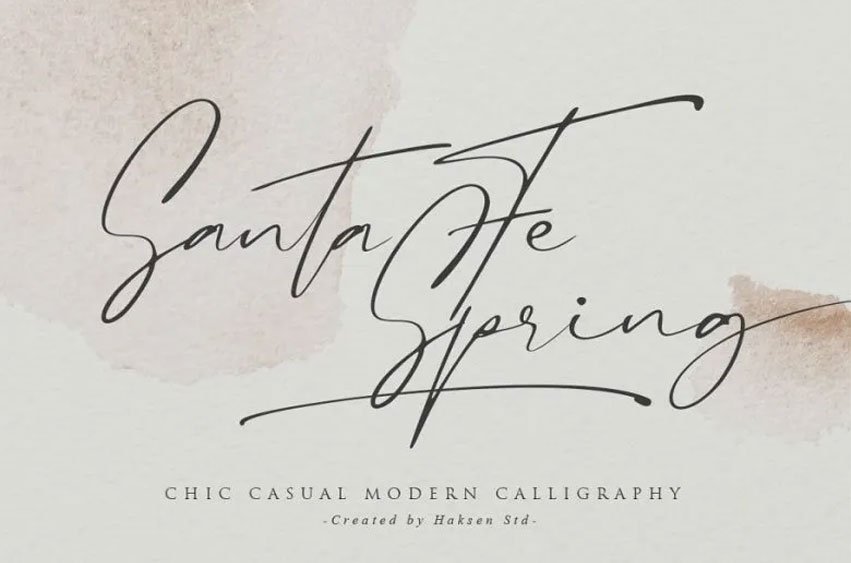
Santa Fe Spring Font is an elegant modern casual handwritten script font suitable for branding logotype, signatures, wedding invitations, products/packaging and much more.
It has all the upper and lower case punctuation, the numbers, the letters Multilingual symbols the lowercase ending and beginning swashes ligatures and the additional swashes that give it the look of a handwritten font swash.